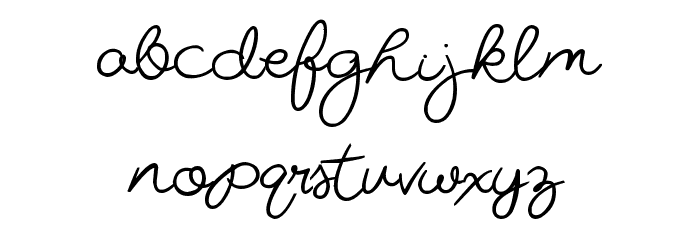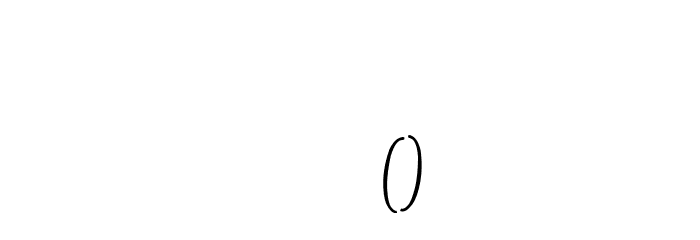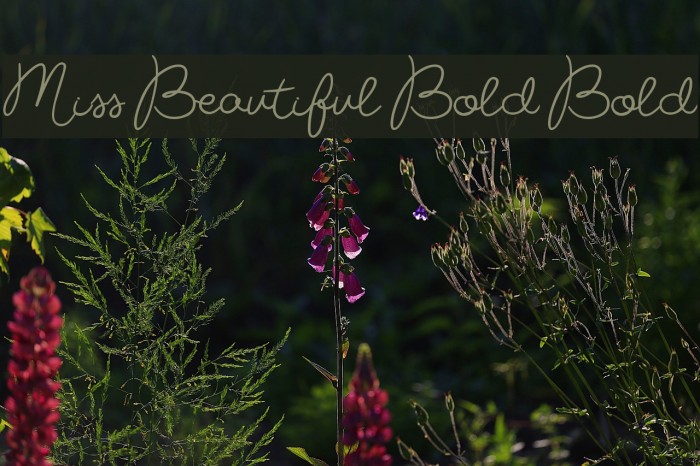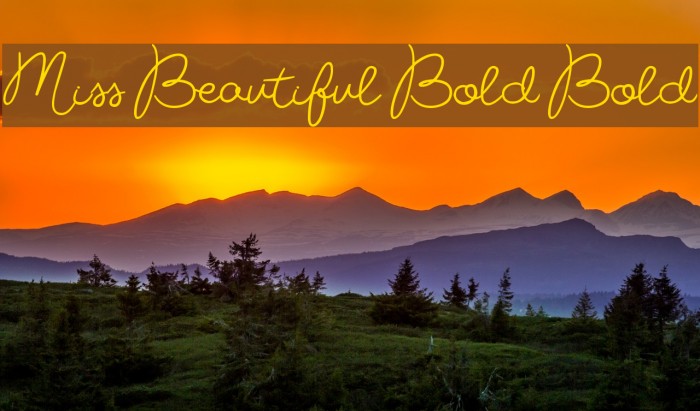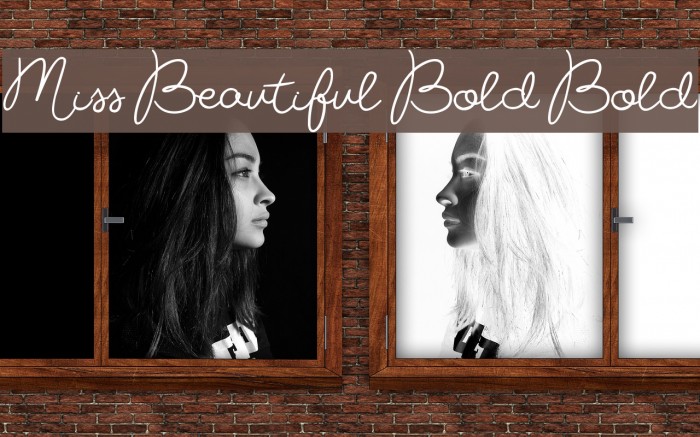
Miss Beautiful Bold Bold Font
This font exudes elegance and fluidity with its cursive, handwritten style. The characters are interconnected, creating a seamless flow that is both graceful and sophisticated. The uppercase letters are slightly more elaborate, with extended loops and swashes that add a touch of flair. The lowercase letters maintain a consistent rhythm, enhancing readability while preserving the artistic nature of the script. The font's overall appearance is delicate yet confident, making it suitable for projects that require a personal and stylish touch. Its unique charm lies in the subtle variations in stroke thickness, which add depth and character without compromising legibility.
A cursive, handwritten font with elegant, flowing characters and subtle stroke variations.
- Proposed Projects: Ideal for wedding invitations, greeting cards, personal branding, and elegant packaging designs.
- Overall Style: Elegant
- Use Case: Logos, Invitations, Personal Branding